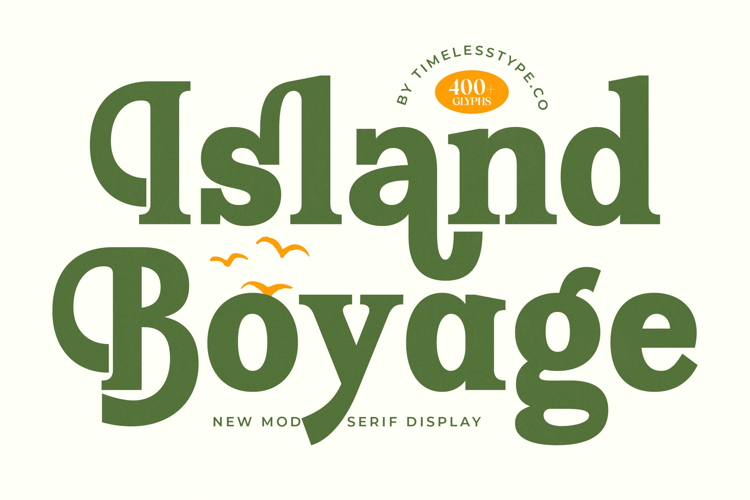
Island Boyage - Modern Serif Display
Discover the allure of Island Boyage - Modern Serif Display, a captivating display typeface designed to imbue your projects with an unmistakable blend of modern elegance and organic warmth. Its unique, rounded serif forms and substantial weight create an inviting yet authoritative presence, ensuring your message stands out with distinct personality. This font masterfully balances contemporary aesthetics with a touch of timeless appeal, making it perfect for designs demanding both style and substance.
Elevate your visual narratives with the unparalleled charm of Island Boyage - Modern Serif Display. Each character is crafted with an eye for harmonious curves and robust structure, delivering exceptional legibility and a truly high-impact visual statement. The generous counter-forms and subtly playful yet sophisticated terminals lend themselves to creating memorable headlines, logos, and branding materials that resonate deeply with audiences seeking both luxury and approachability.
Expand your creative reach effortlessly. With its extensive multilingual support, Island Boyage - Modern Serif Display adapts seamlessly across global markets, making it incredibly versatile for international projects. This comprehensive glyph set ensures your designs maintain their intended aesthetic and professional integrity, regardless of language. It's an essential tool for designers aiming for worldwide recognition and consistent brand communication.